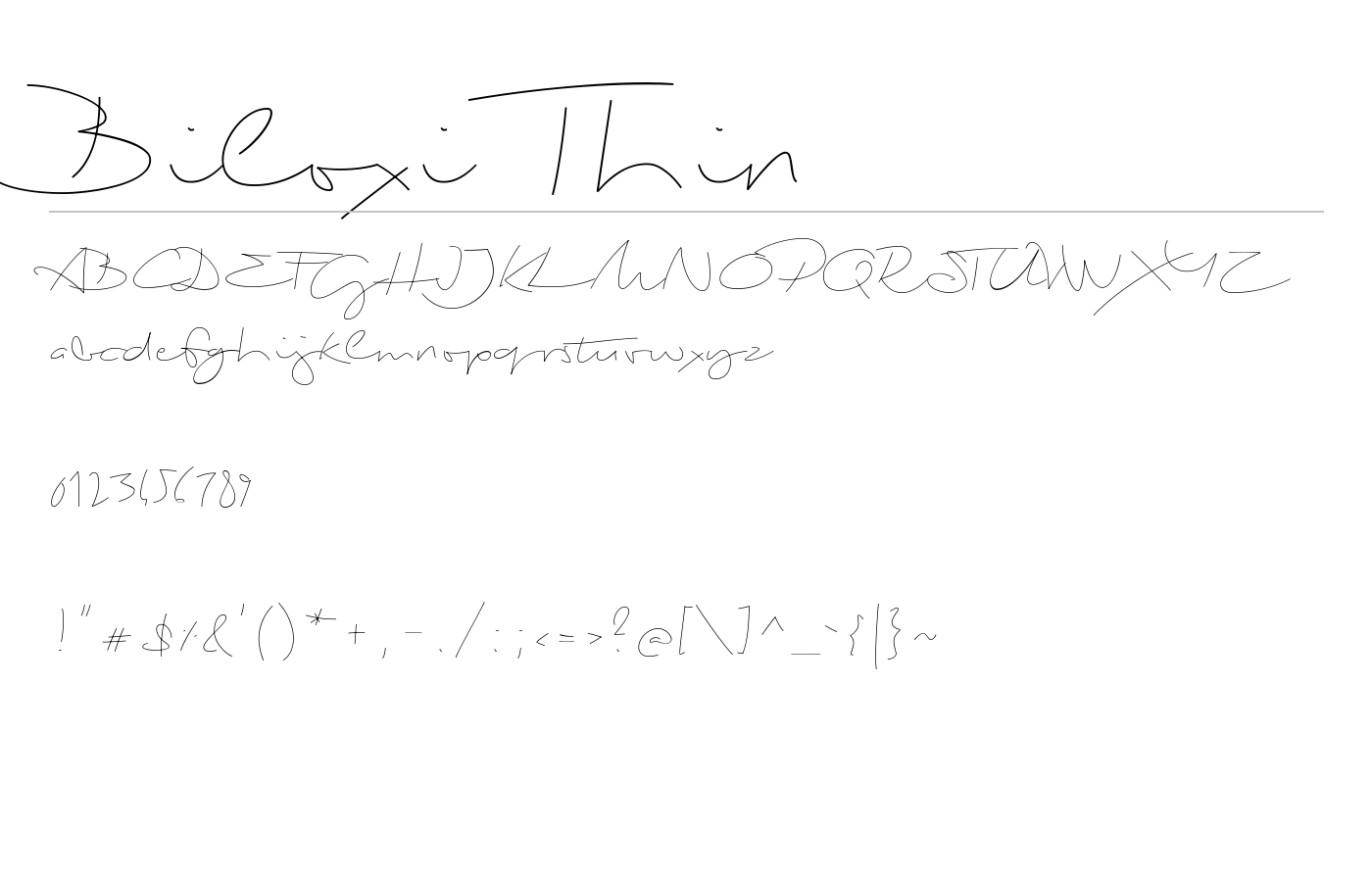
Biloxi Script Thin is a delicate, airy handwritten script font characterized by very thin strokes and a loose, flowing style that mimics natural penmanship. Its light weight and wispy letterforms create a casual yet elegant feel, making it perfect for personal invitations, artistic branding, or editorial accents where a subtle, sophisticated touch is desired. This font works best in large sizes or short text to showcase its graceful lines without sacrificing readability.
Biloxi Script Font
About Biloxi Script Font